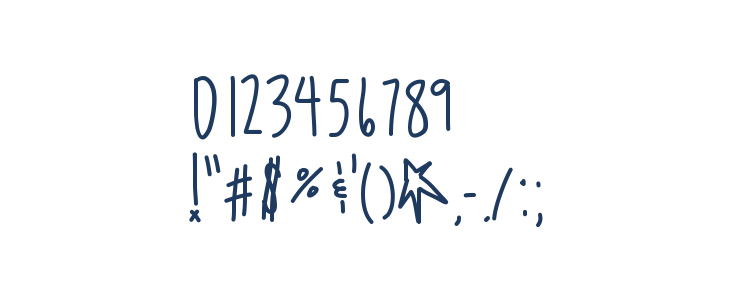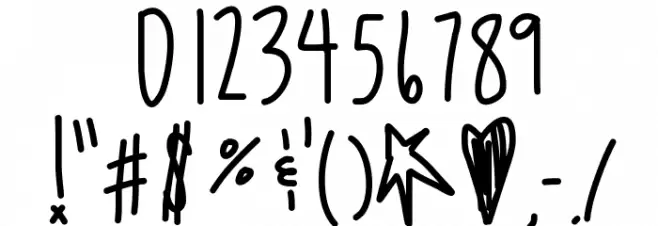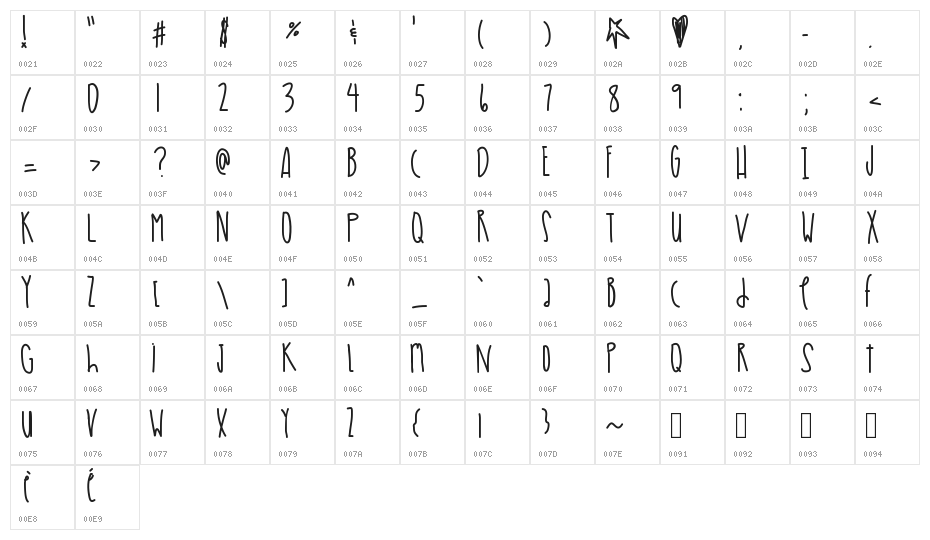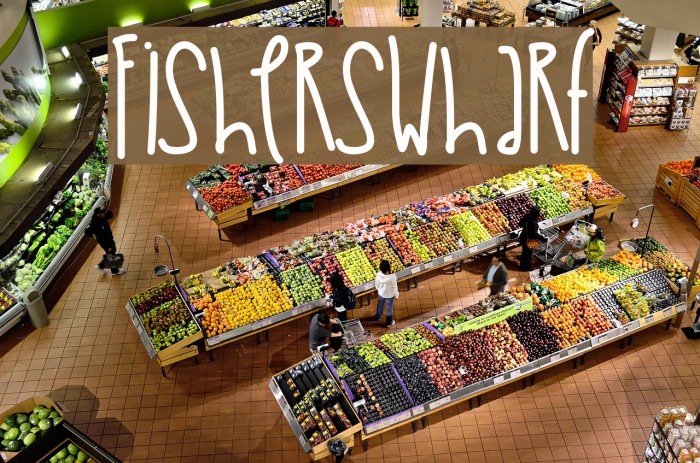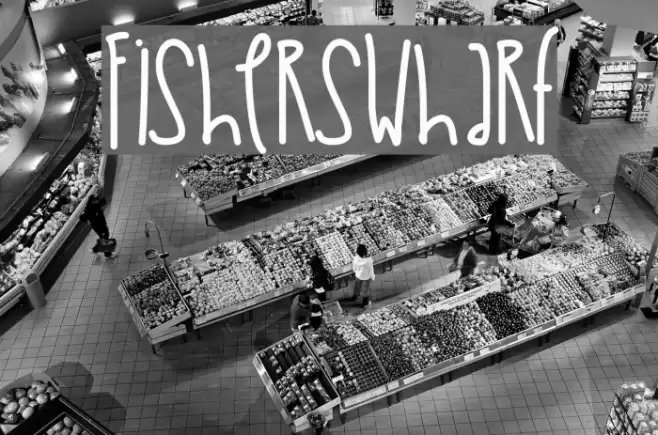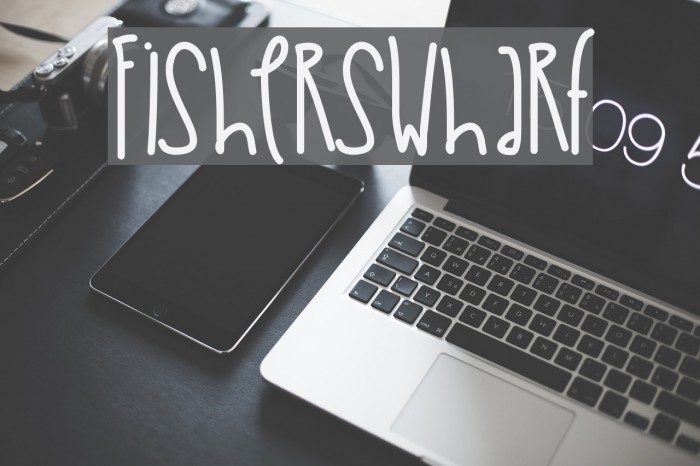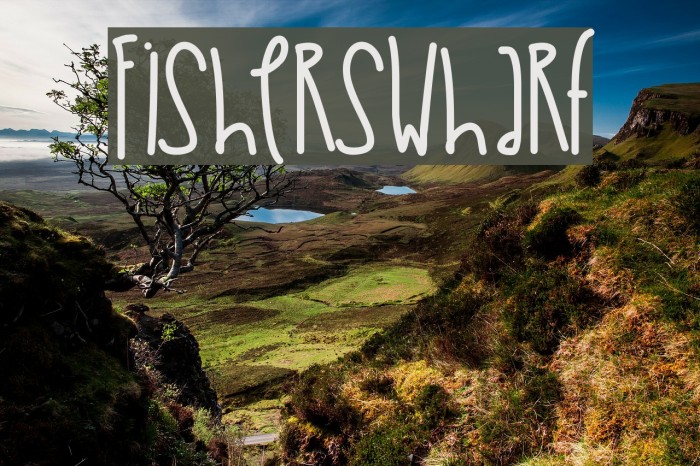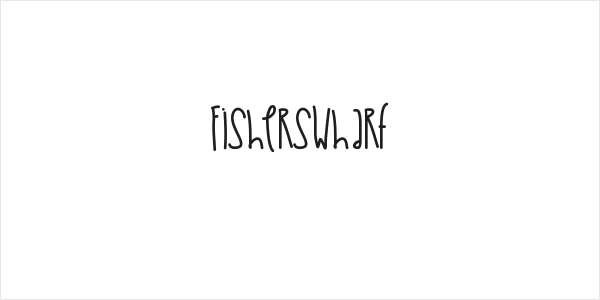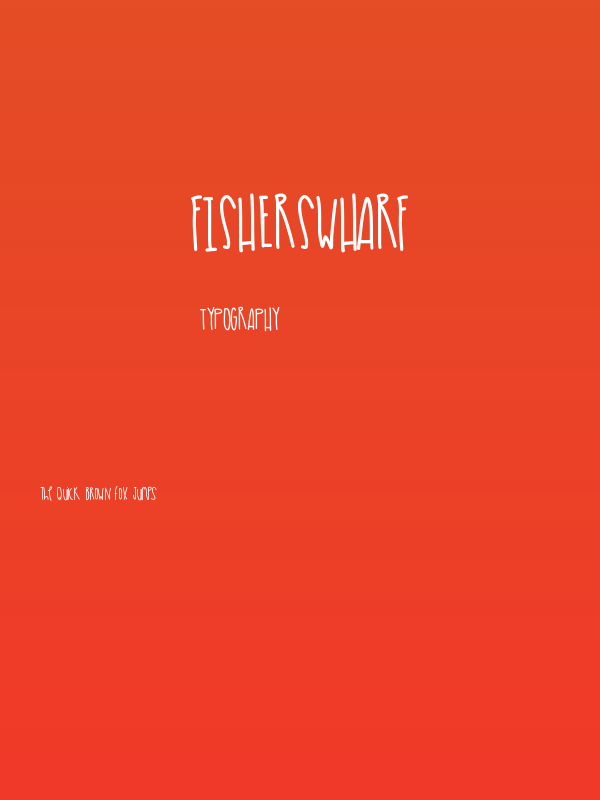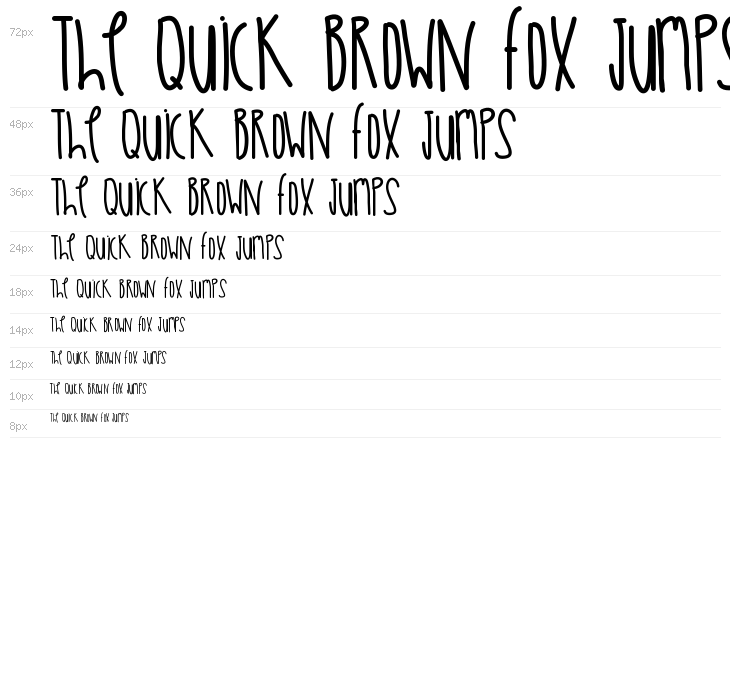
FishersWharf Font
FishersWharf Description
This playful and whimsical font features a handwritten style with tall, narrow characters. The strokes are smooth and slightly irregular, giving it a casual and friendly appearance. The uppercase and lowercase letters maintain a consistent height, while the numbers and special characters complement the overall design with their quirky shapes. The font's informal nature makes it ideal for projects that require a personal touch or a creative flair.
| Proposed Projects | Ideal for greeting cards, children's books, playful branding, and creative posters. |